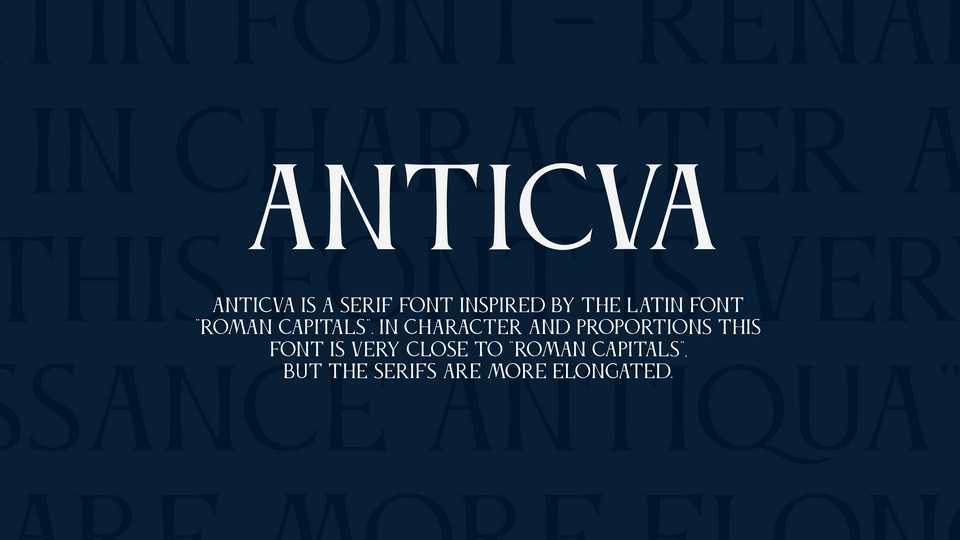
Download Anticva font, a serif typeface inspired by the Renaissance Antiqua. In character and proportions Anticva is very close to Renaissance Antiqua but the serifs are more elongated.
Designer: Konstantin Krastev